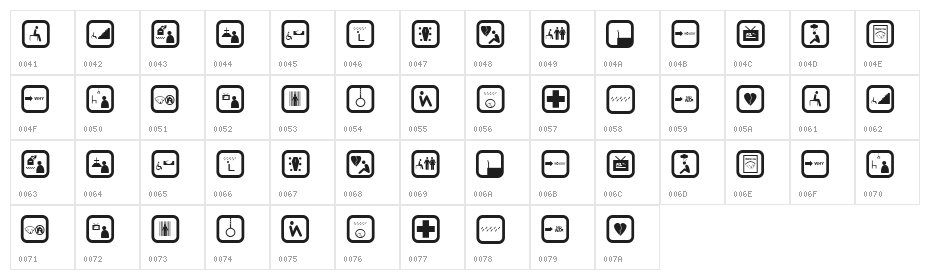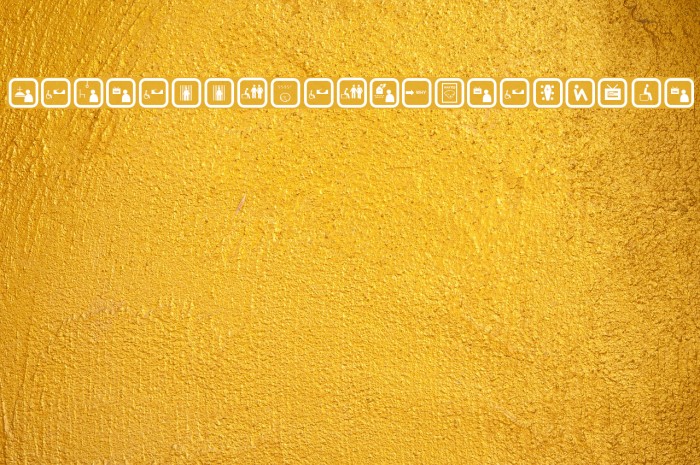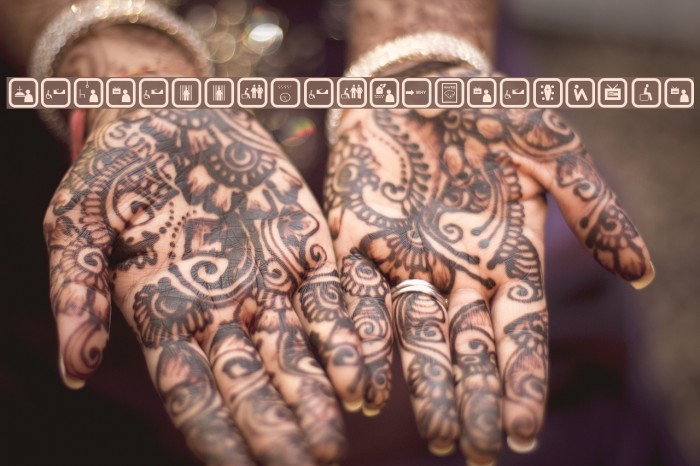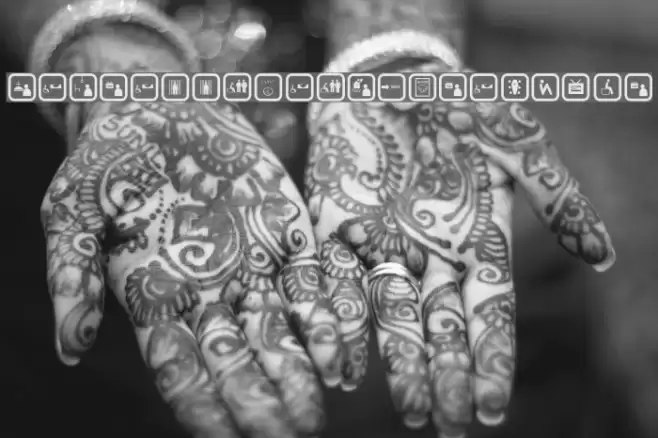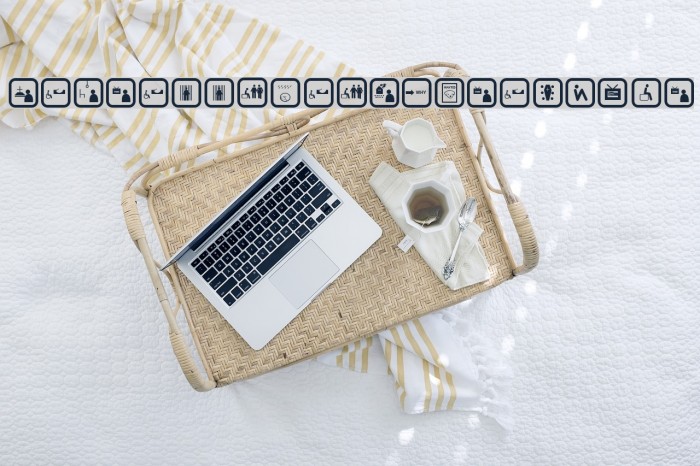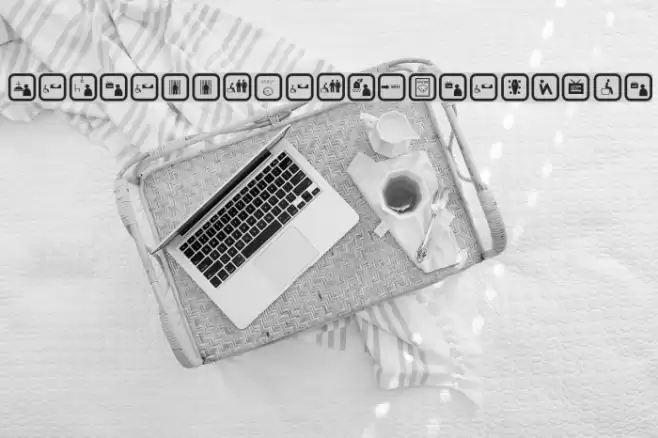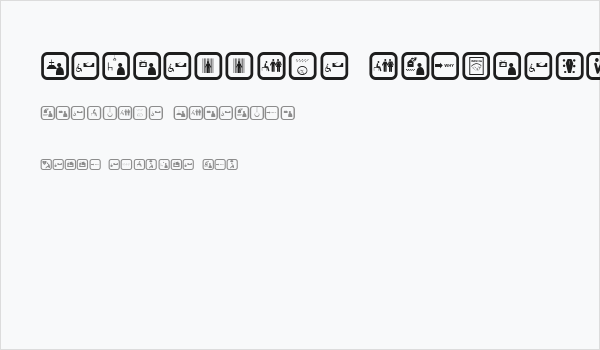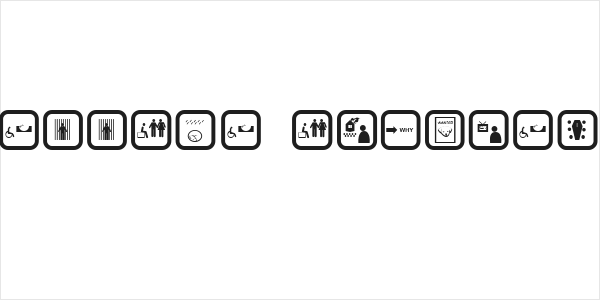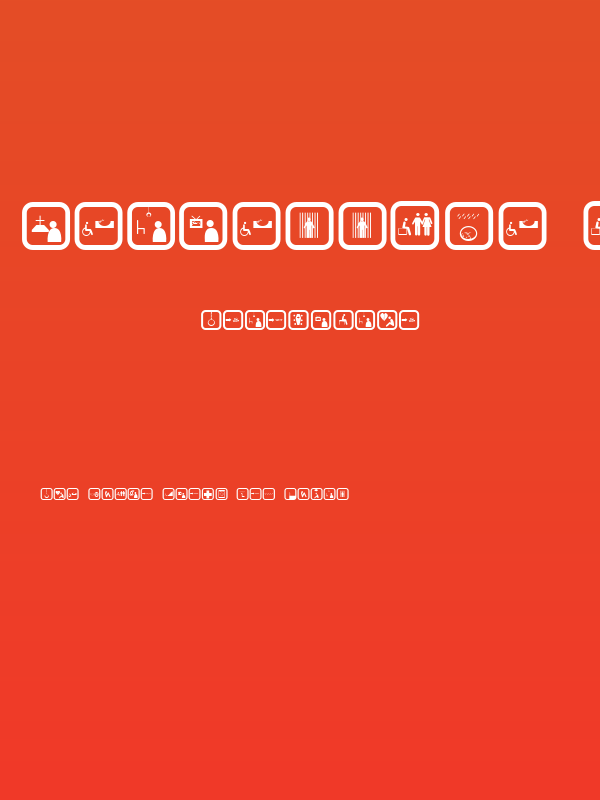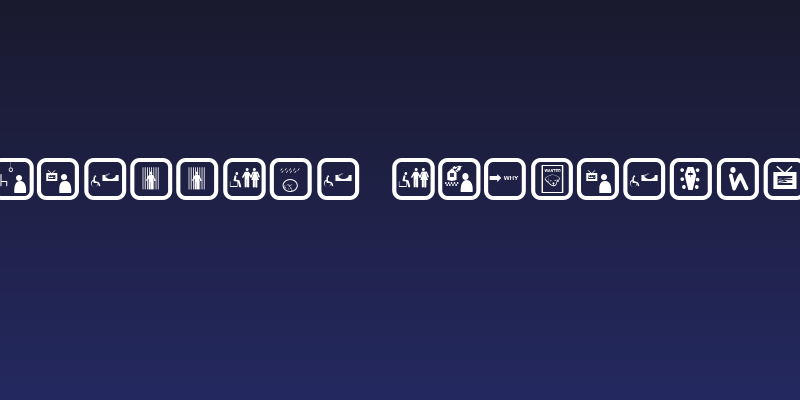
DEPRESSIVE ICONRegular Font
DEPRESSIVE ICONRegular Description
This is not a traditional font but rather a collection of icons enclosed in rounded squares. Each icon represents a different symbol or concept, such as accessibility, warning signs, and various abstract or literal representations. The icons are monochromatic, using black and white for a stark contrast. The style is consistent across all icons, with a bold outline that ensures clarity and visibility. The icons are designed to convey specific messages or instructions, making them suitable for signage or informational graphics.
| Use Case | Signage, Informational graphics |
| Proposed Projects | Ideal for use in signage, informational graphics, or any project requiring clear, symbolic communication. |